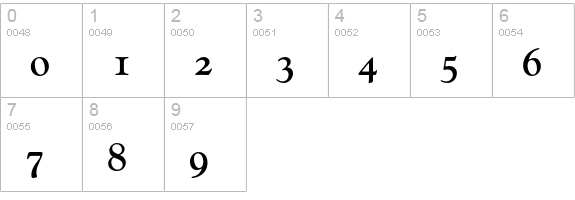
Goudy Bold Old Style Figures Font Details
Goudy Bold Old Style Figures is a strong, high-contrast variant in the Goudy typeface family \xE2\x80\x94 well suited to headlines, attention-grabbing titles, and strong calls-to-action.
Goudy Bold Old Style Figures font is a timeless and classic typeface that exudes elegance and sophistication. With its bold strokes and vintage charm, this font is perfect for adding a touch of refinement to any design project. The old-style figures bring a sense of tradition and authenticity to the text, making it stand out with its unique character. The Goudy Bold Old Style Figures font is not only stylish and versatile but also has a touch of nostalgia that makes it perfect for a wide range of applications. Whether you're designing a logo, creating invitations, or working on a branding project, this font will surely make a statement. The best part is that Goudy Bold Old Style Figures font is available for free download at FontsMarket.com. So, you can easily access this beautiful typeface and use it in your projects without any hassle. Don't miss out on the opportunity to enhance your designs with this stunning font!